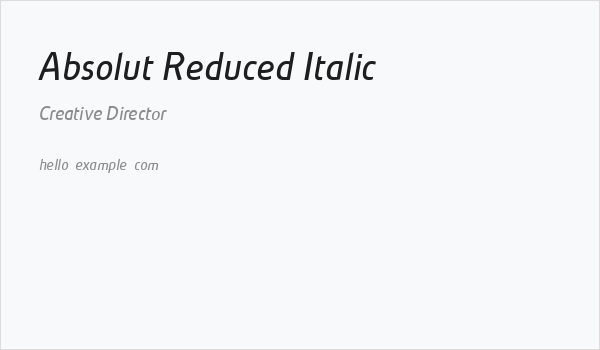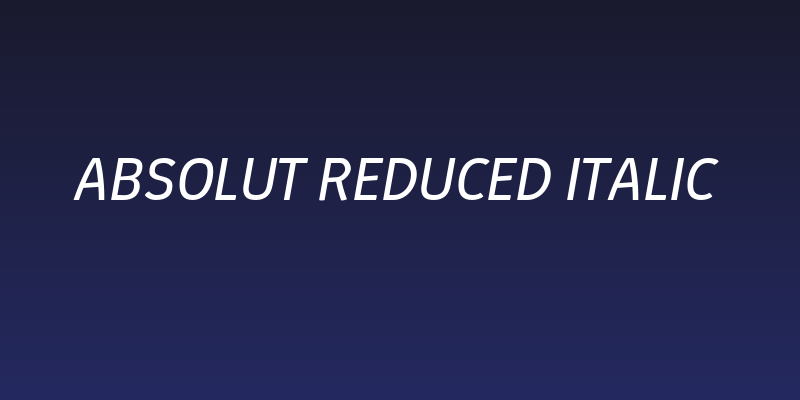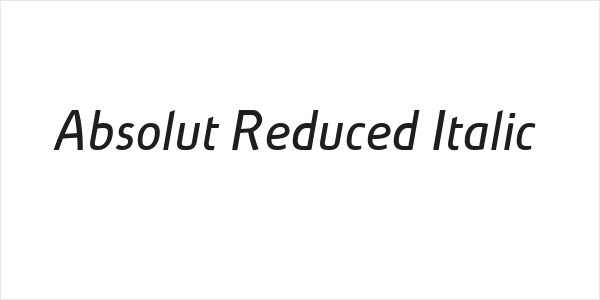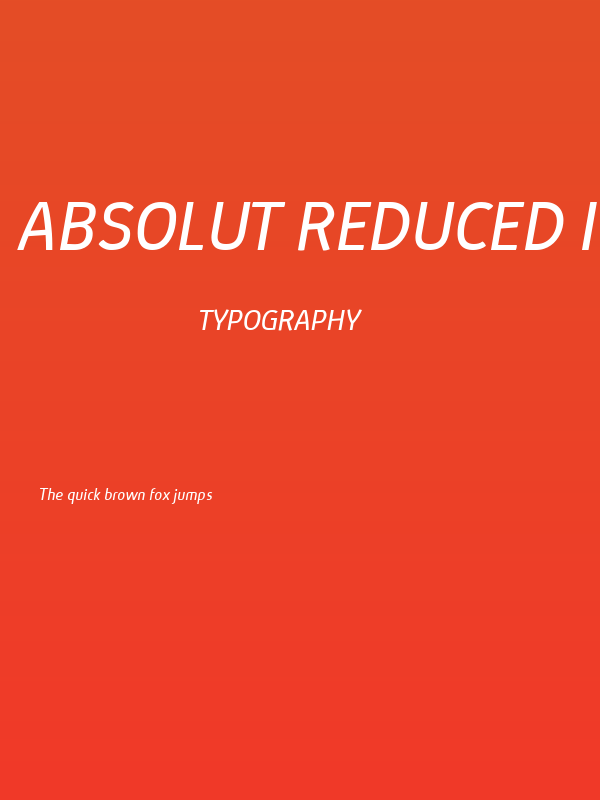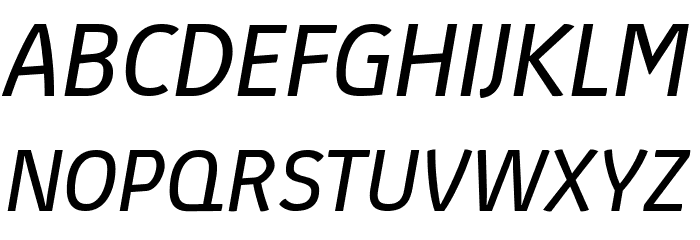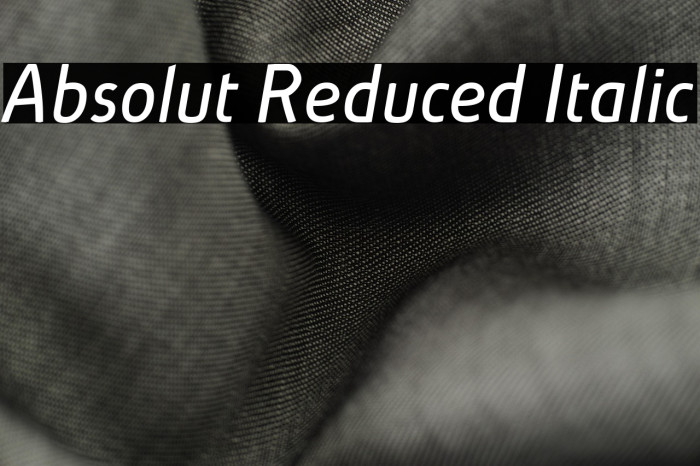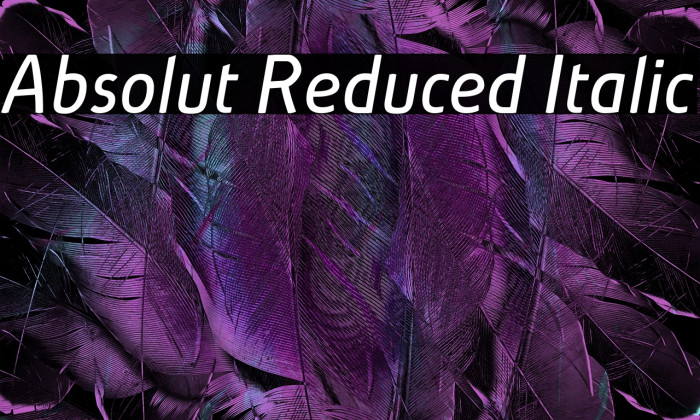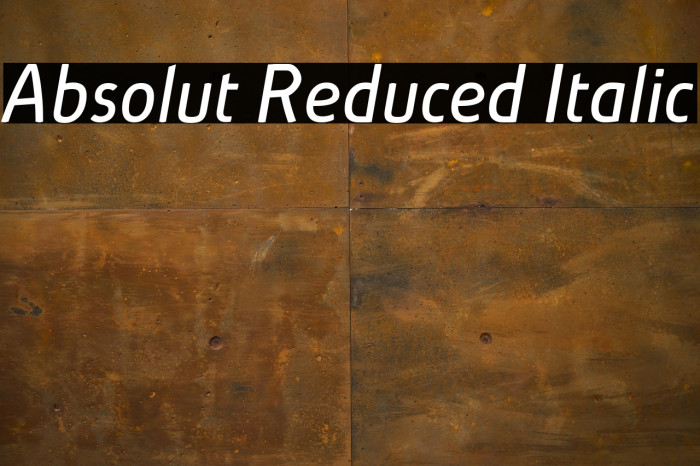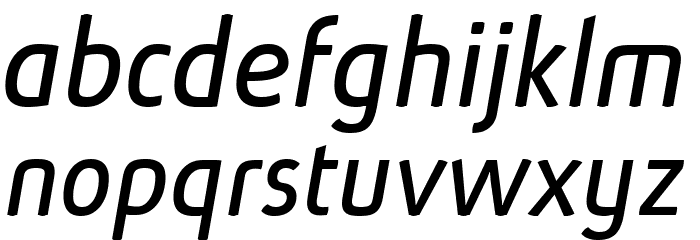
Absolut Reduced Italic Font
This font features a sleek, modern design with a slight italic slant, giving it a dynamic and forward-moving appearance. The characters are clean and sans-serif, providing a contemporary and professional look. The uppercase and lowercase letters are well-proportioned, with a consistent stroke width that maintains readability across different sizes. The font includes a full set of uppercase and lowercase letters, numerals, and a selection of special characters, making it versatile for various design needs. Its minimalist style is ideal for projects that require a clean and unobtrusive typeface.
| Proposed Projects | Ideal for branding, advertising, digital media, and editorial design projects. |